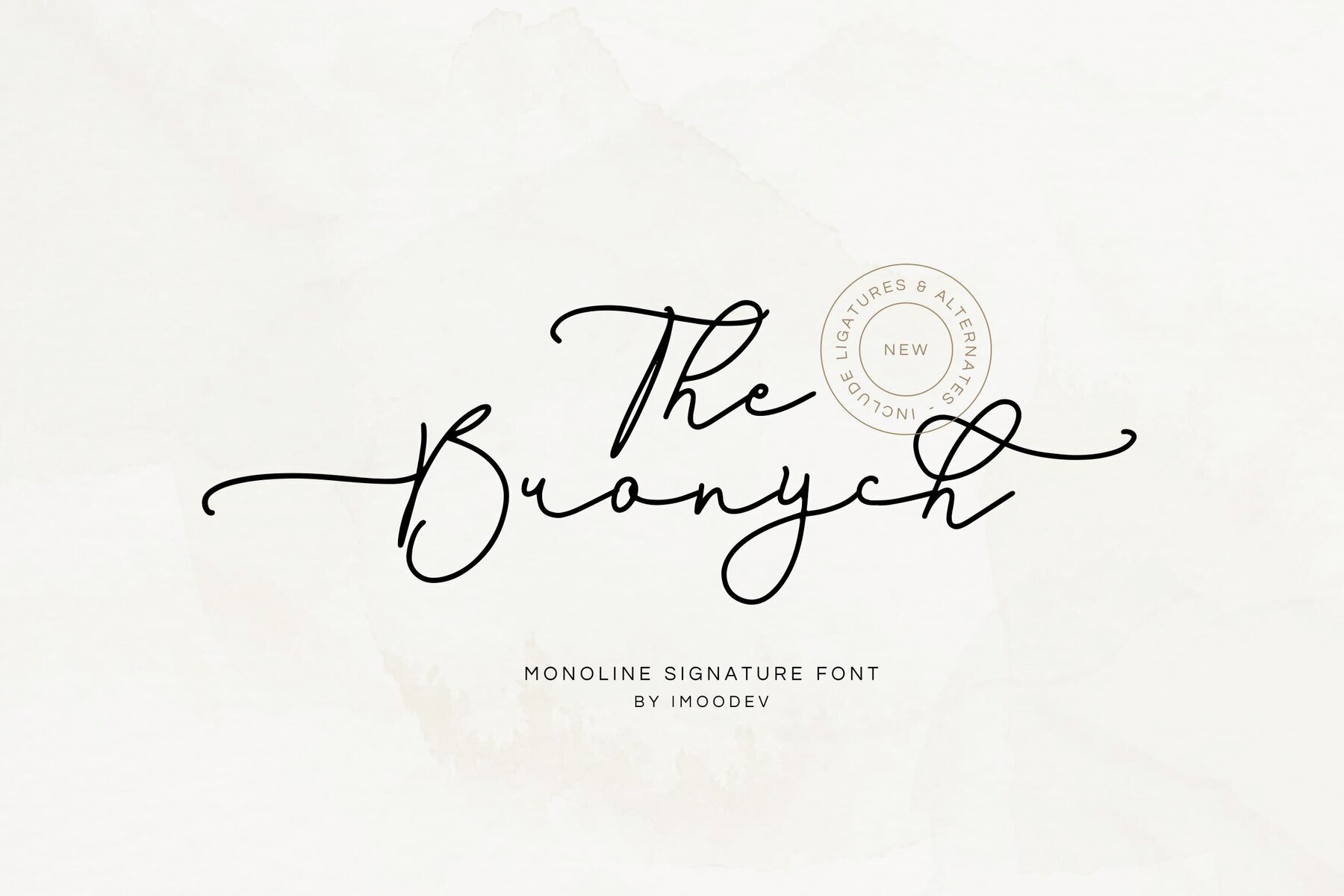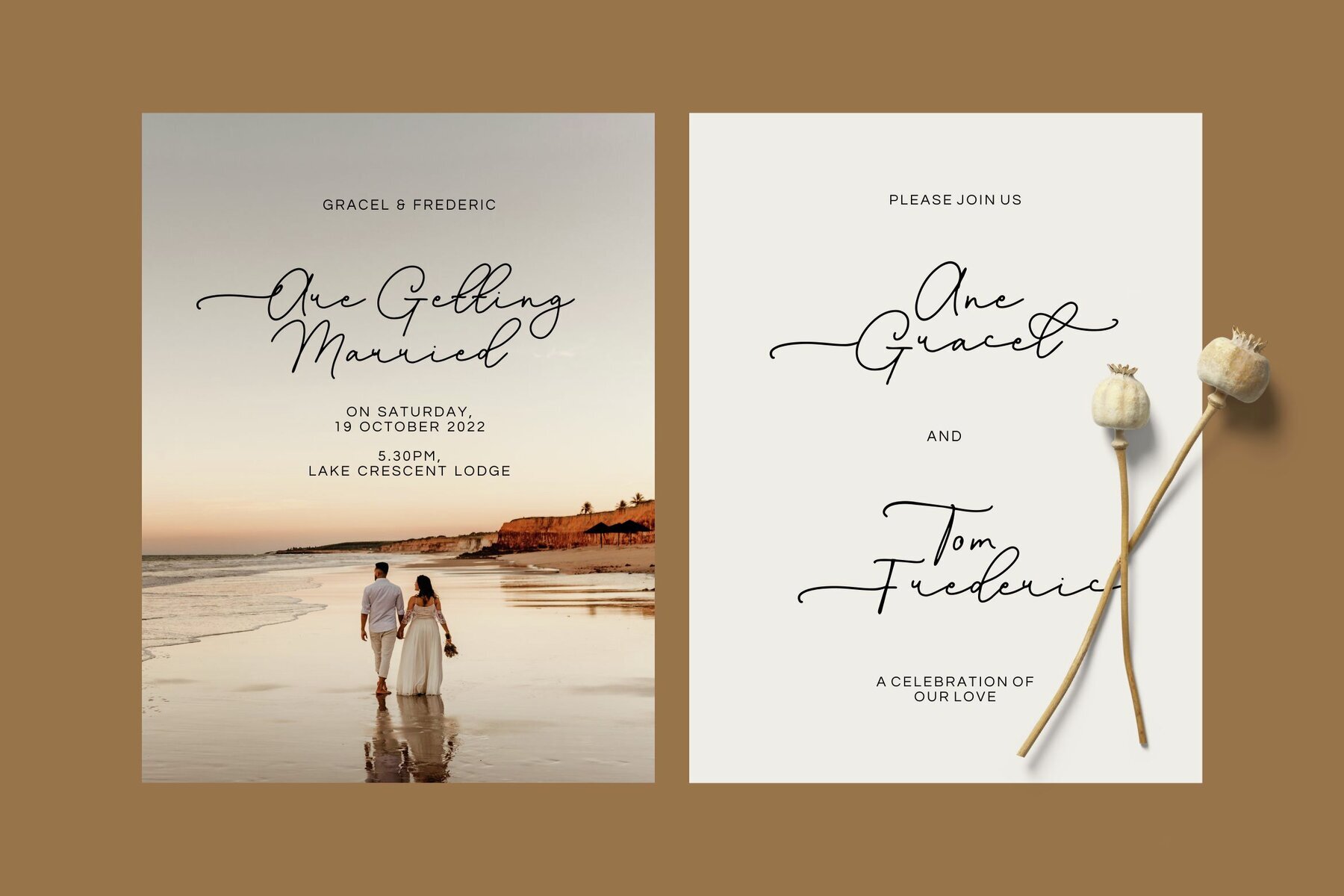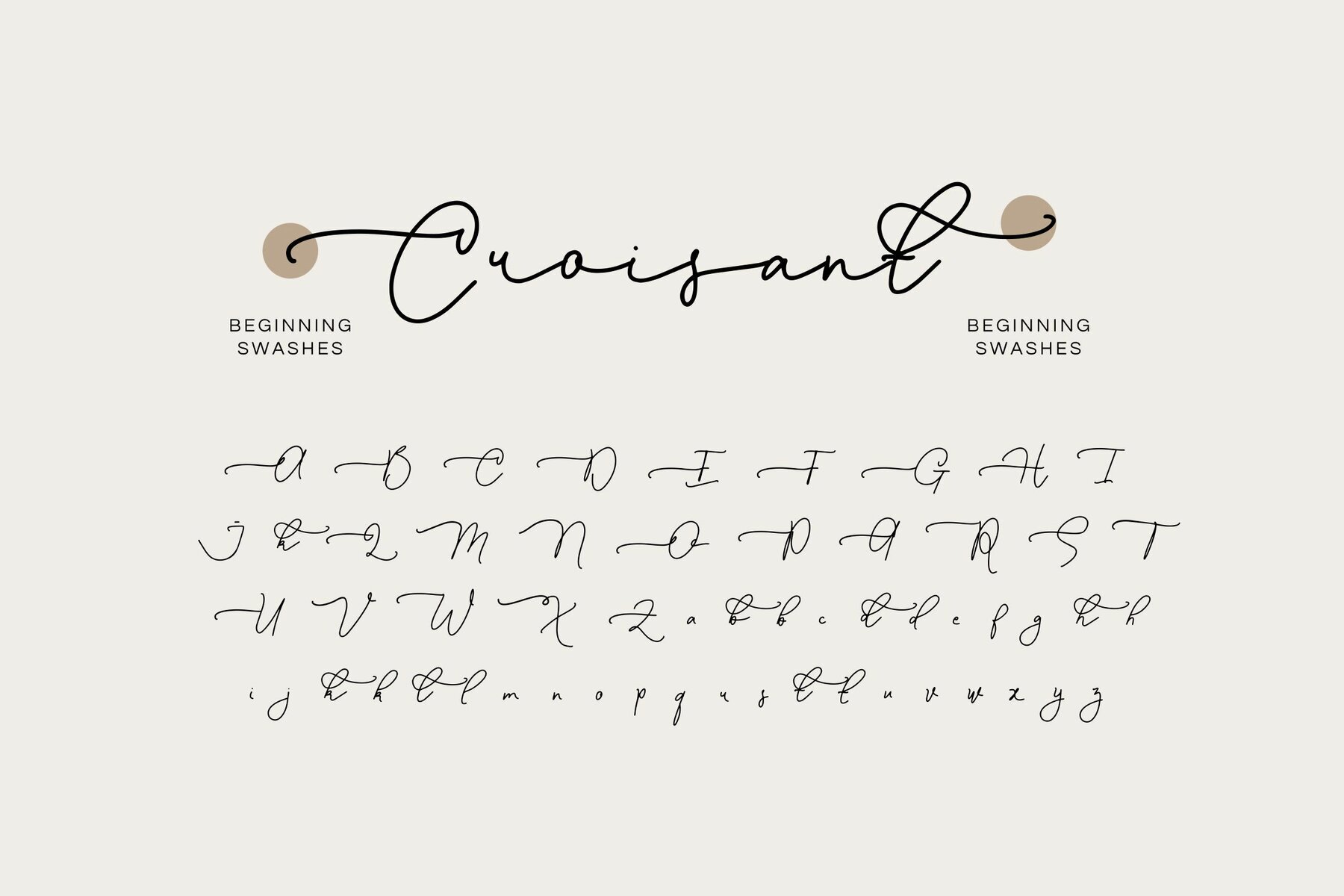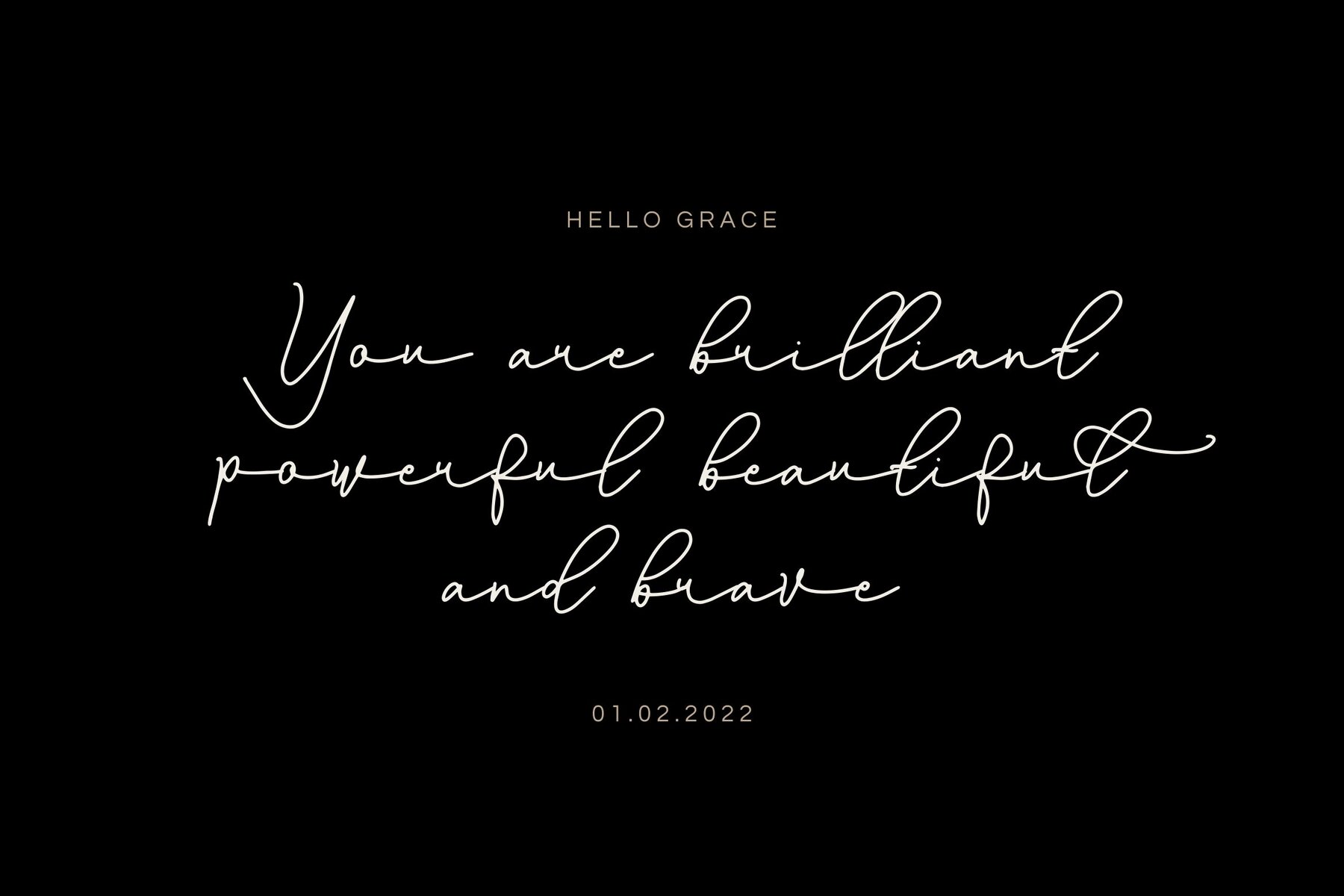
The Bronych Font
The Bronych Regular
The Bronych delivers a refined monoline signature style, capturing the fluid elegance of hand-drawn script with purposeful dynamic loops and expressive flourishes. Each letter showcases a careful balance of line variation, creating movement and an authentic ink flow texture that offers a natural, personalized touch to every project. This font excels in applications where sophistication and clarity matter. Its versatile structure works seamlessly for branding, wedding invitations, handwritten quotes, signature logos, watermarks, and elegant stationery. The Bronych suits feminine branding and high-end event materials, adding a distinctive and memorable quality to visual communication. Embrace a modern touch with this contemporary script, crafted for those seeking understated artistry and consistency across various design needs.The Bronych Monoline Handwritten Script Typeface